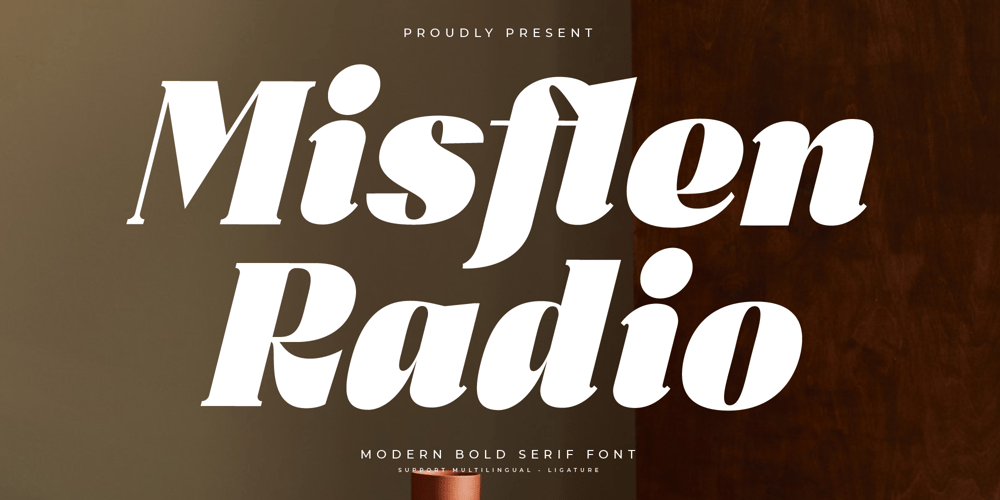
Misflen Radio
Misflen Radio font
Misflen Radio Font Family was designed by Heru Utama Putra and published by Letterena Studios. Misflen Radio contains 2 styles and family package options. Misflen Radio is a modern, trendy serif font that commands attention with its bold presence. Its sleek lines and sharp edges exude confidence and style, making it perfect for headlines, branding, and editorial designs. With a contemporary twist on classic serif fonts, Misflen Radio stands out with its bold statement.